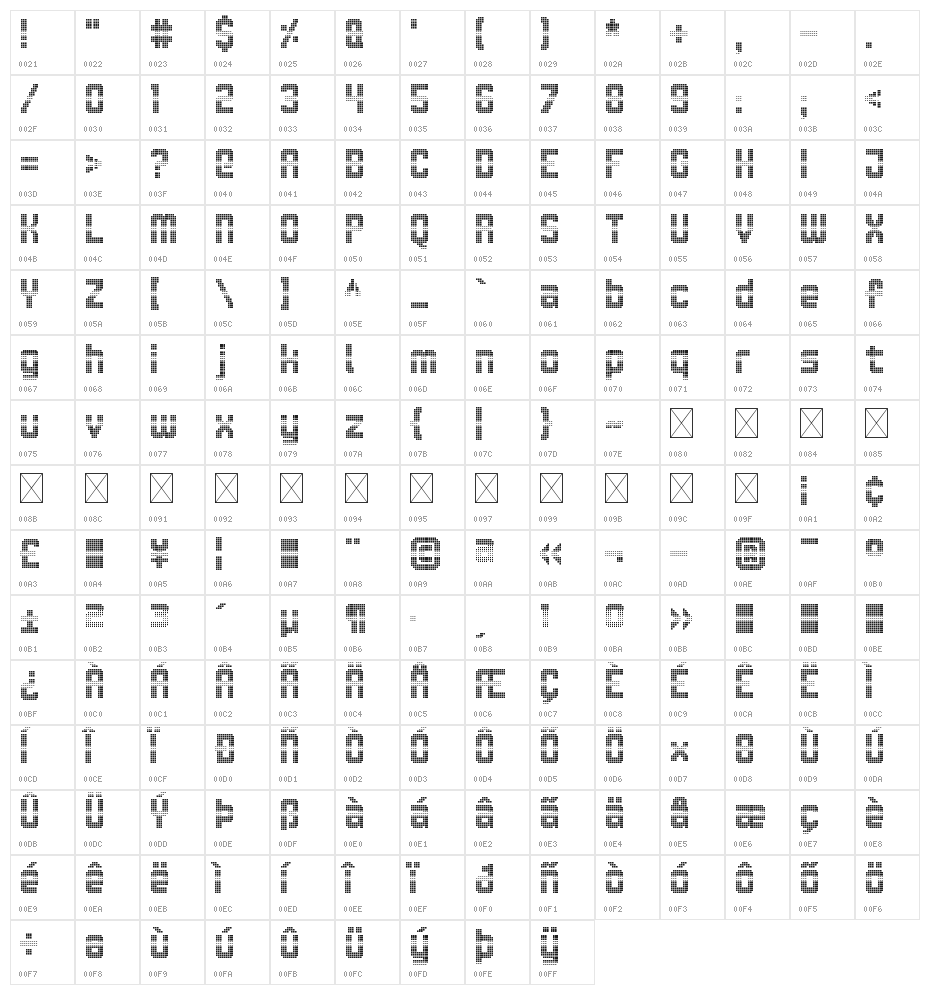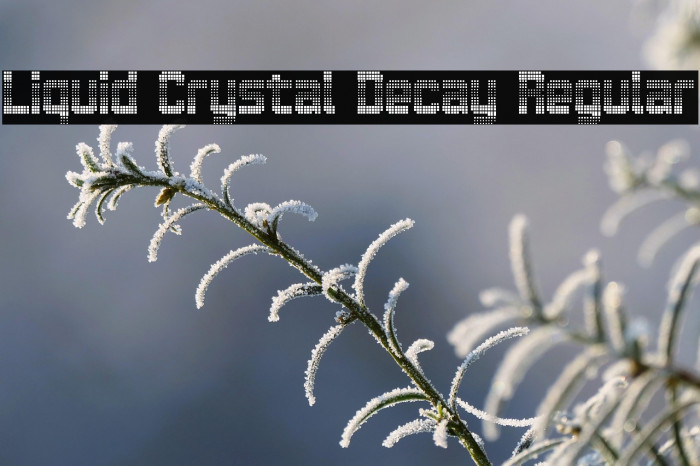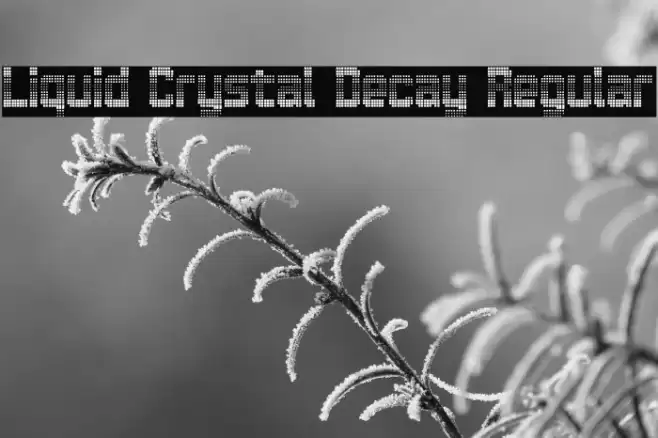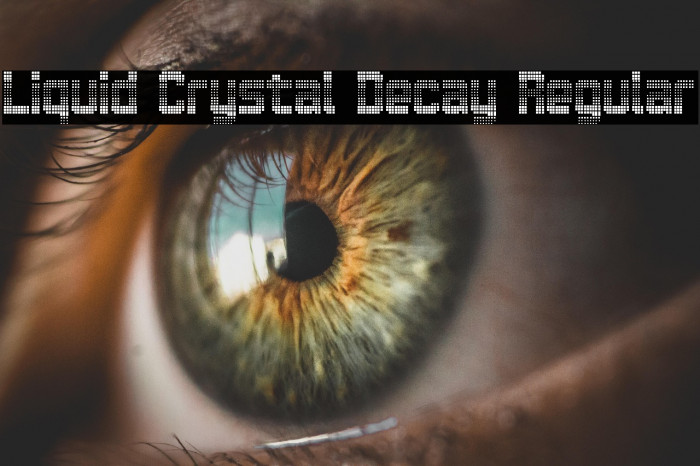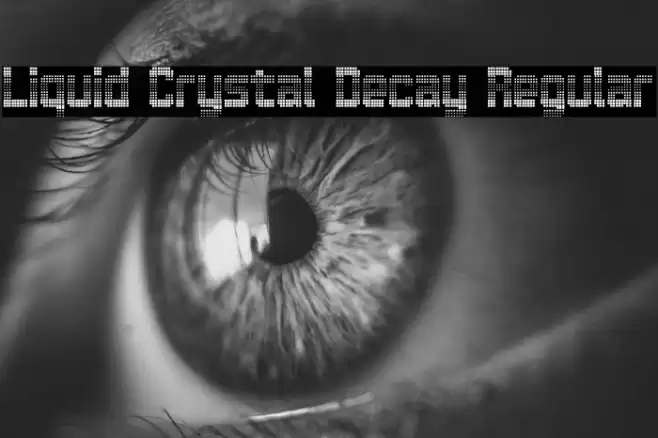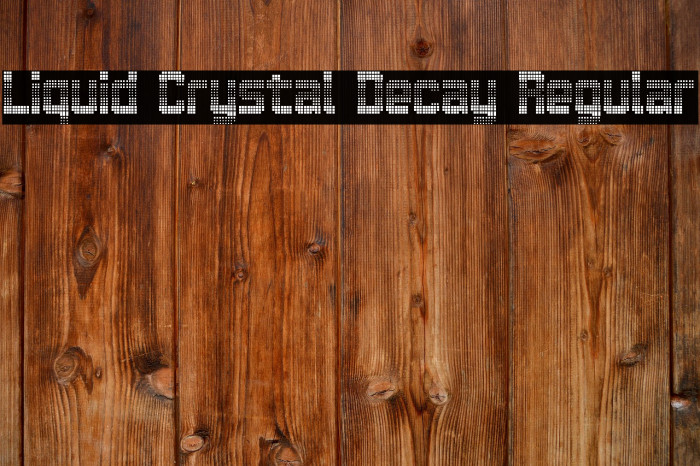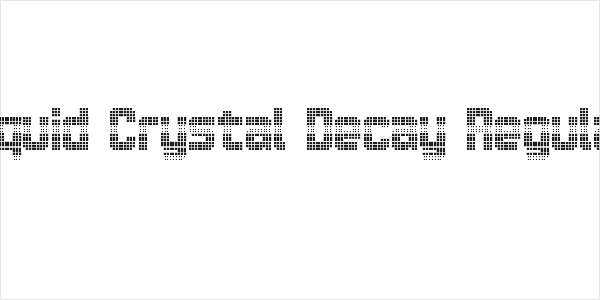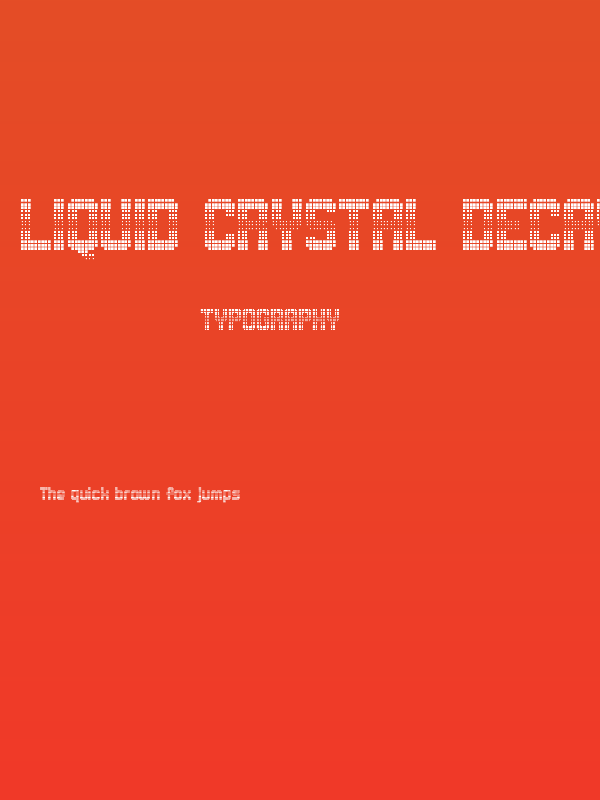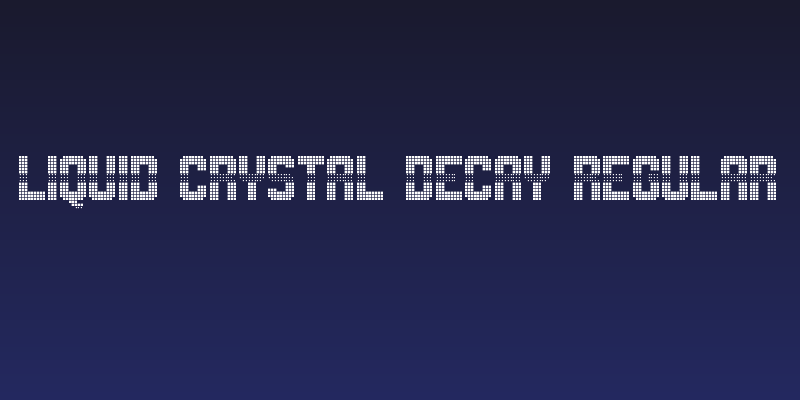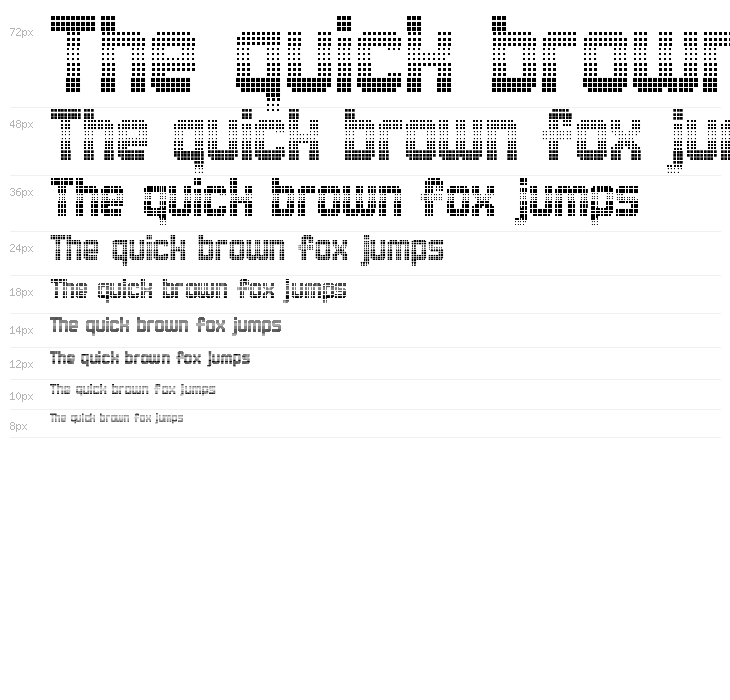
Liquid Crystal Decay Regular Font
Liquid Crystal Decay Regular Description
This font features a unique pixelated design, reminiscent of digital displays and retro technology. Each character is constructed from a grid of small squares, creating a distinct and futuristic appearance. The uniformity of the grid gives it a structured and mechanical feel, while the pixelated style adds a touch of nostalgia. The font is highly legible despite its unconventional design, making it suitable for various creative applications. Its geometric nature provides a modern and edgy look, ideal for projects that aim to capture a digital or tech-inspired aesthetic.
| Overall Style | Modern, Futuristic |
| Use Case | Headlines, Logos, Digital displays |
| Proposed Projects | Ideal for digital art, tech-themed posters, video game graphics, and retro-futuristic branding. |